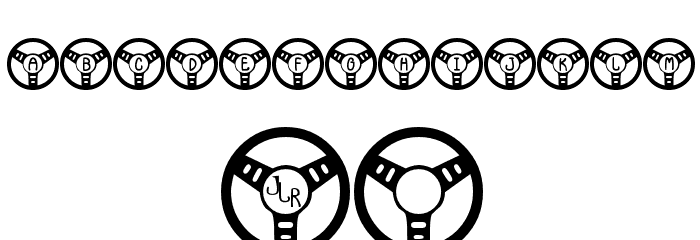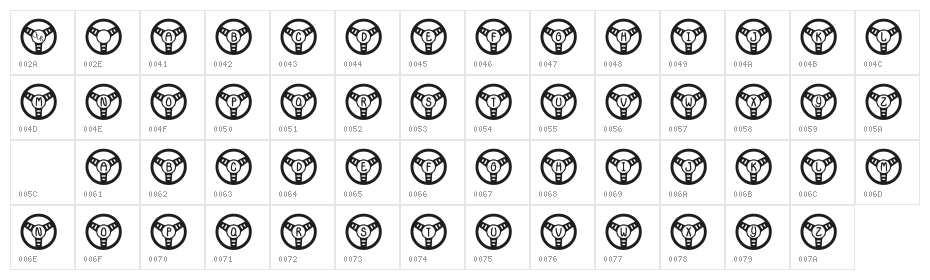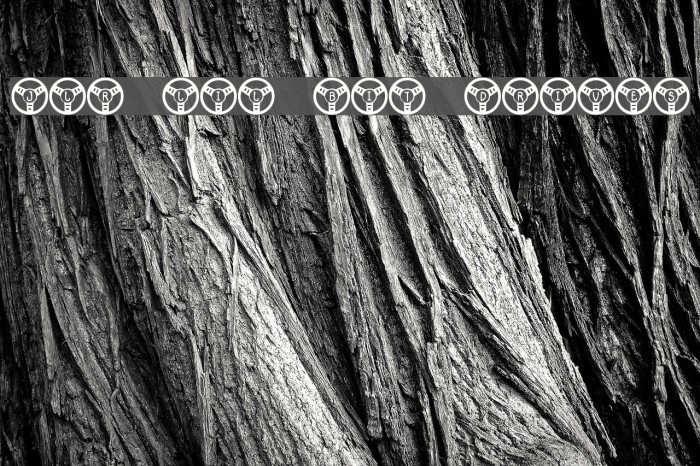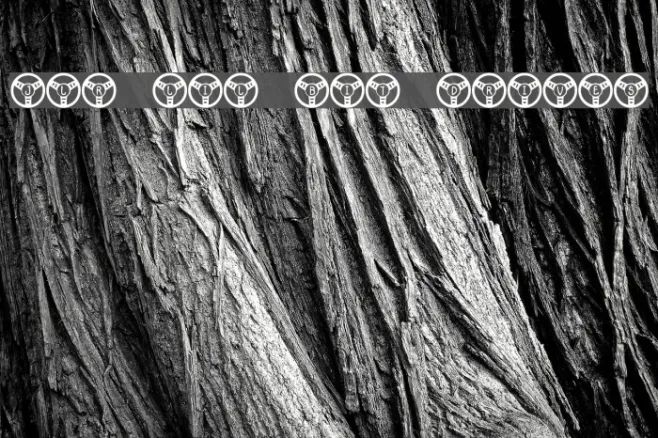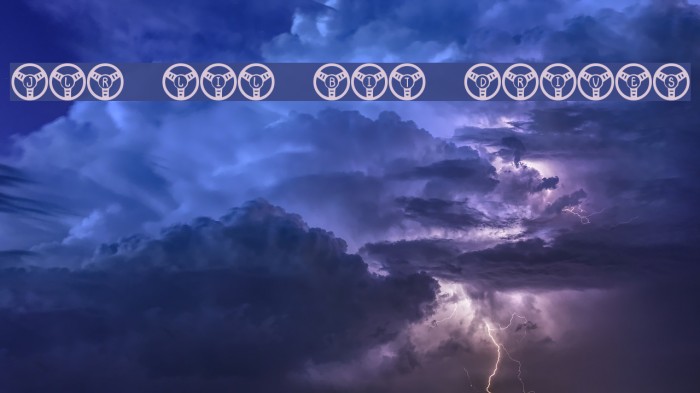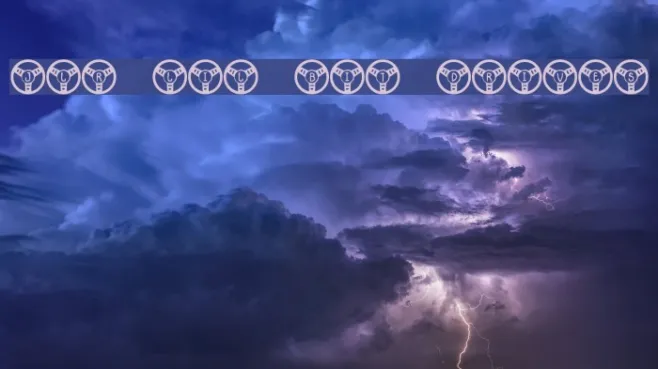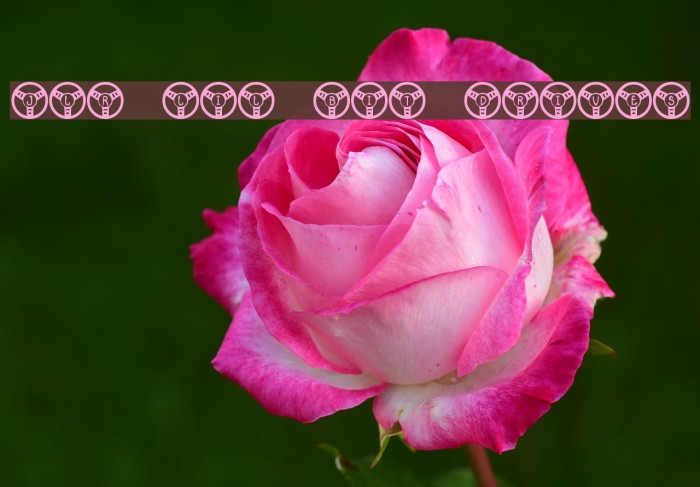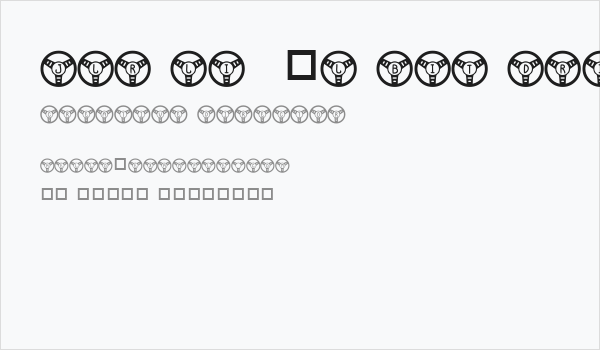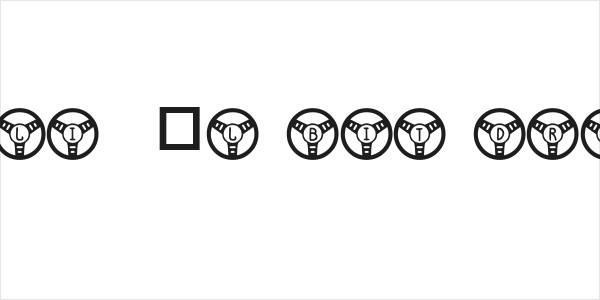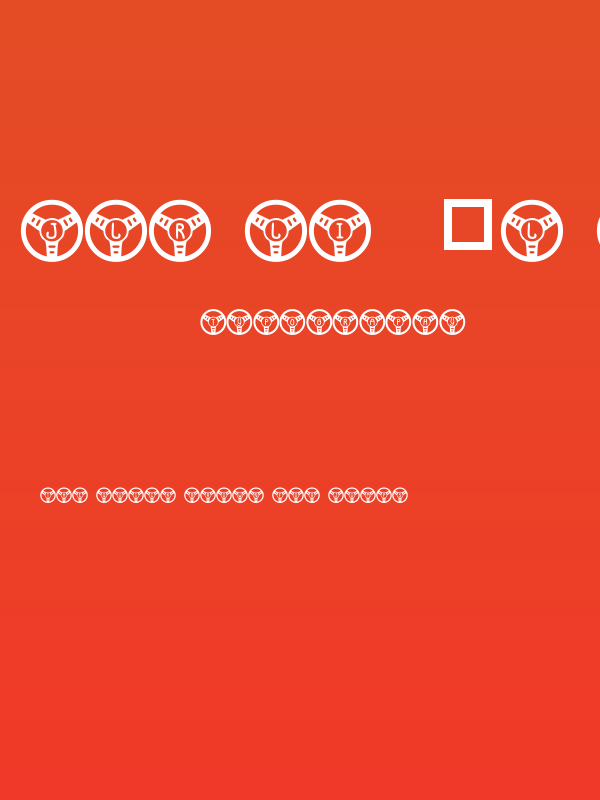
JLR Li'l Bit Drives Font
JLR Li'l Bit Drives Description
This font features a unique design where each character is enclosed within a steering wheel motif, giving it a playful and automotive-themed appearance. The letters and numbers are centrally positioned within the circular steering wheel, which adds a distinctive and decorative touch. The characters are bold and clear, ensuring readability despite the intricate design. This font is particularly suitable for projects that require a fun and thematic approach, such as automotive branding, children's books, or playful graphic designs. The consistent use of the steering wheel element throughout the character set creates a cohesive and visually engaging style.
| Use Case | Logos, Posters, Themed Events |
| Proposed Projects | Ideal for automotive branding, children's books, playful graphic designs, and themed event materials. |